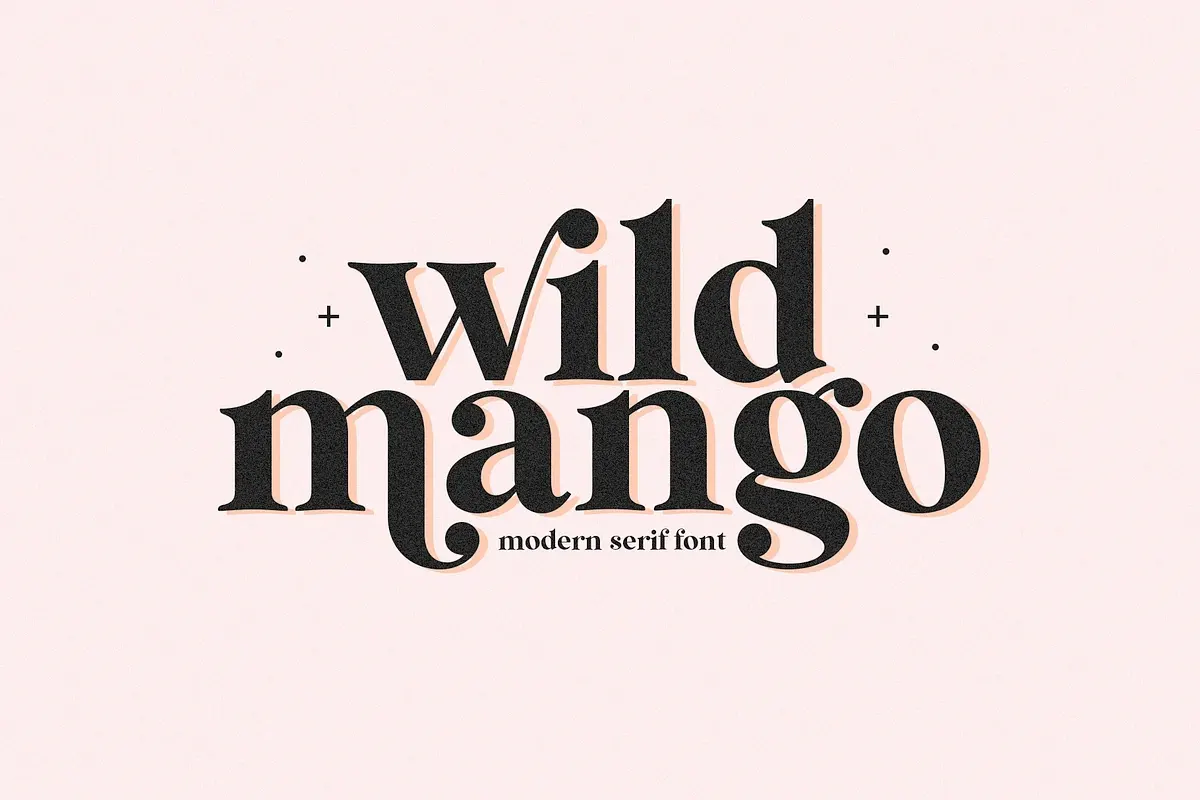
Wild Mango | Modern Serif Font Free Download
Wild Mango | Modern Serif Font Free Download is an elegant and contemporary typeface that blends the timeless appeal of serif fonts with a modern, sophisticated twist. Perfect for logos, branding, invitations, and editorial design, Wild Mango offers a sleek, stylish look that’s versatile and easy to use in a variety of creative projects. Its refined letterforms give a polished, high-end feel to your work.